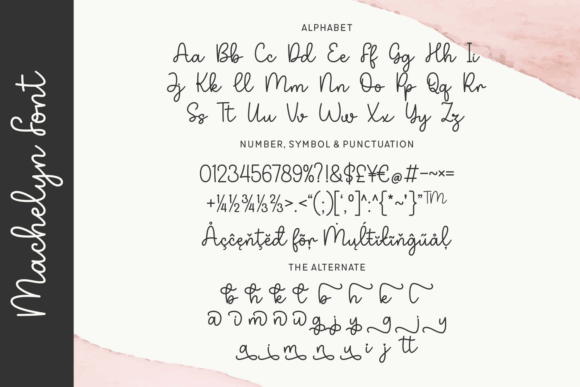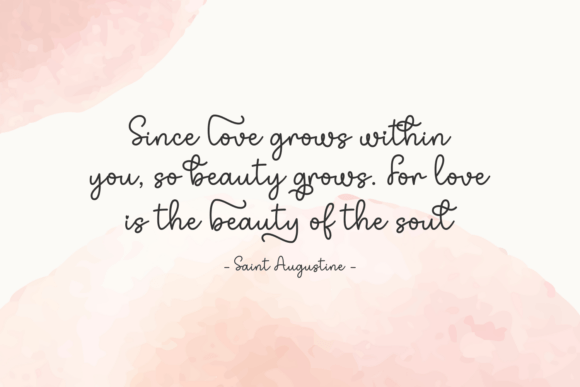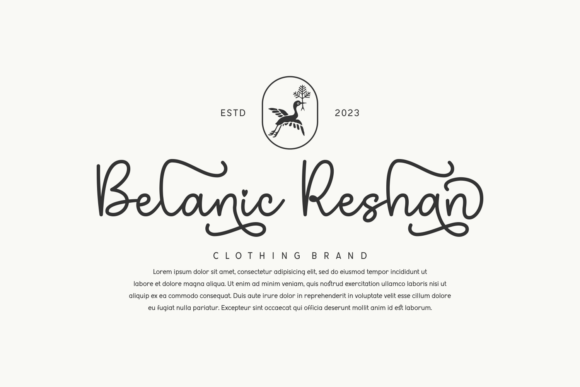
Introduction to Machelyn Font Font
Fonts play a crucial role in design, and the Machelyn Font font is a typeface that brings both character and versatility to any project. Whether you’re working on a branding project, a website, or a print design, the Machelyn Font font offers a unique style that can elevate your work.
Machelyn is a charming monoline script font that radiates elegance and simplicity.
Its flowing lines and unique swashes make it perfect for projects that need a touch of sophistication, such as wedding invitations, branding, greeting cards, and social media posts With its modern yet classic appeal, Machelyn ensures your designs will captivate and inspire.
Key Features of Machelyn Font Font
Why Choose Machelyn Font Font?
The Machelyn Font font is more than just a typeface – it’s a design tool that helps you communicate your message with style and clarity. Its unique character set and versatile design make it suitable for a wide range of applications, from elegant invitations to bold headlines.
With its carefully crafted letterforms and balanced proportions, the Machelyn Font font ensures readability and visual appeal across all mediums.
What makes Machelyn Font font special?
The Machelyn Font font stands out with its unique design, exceptional readability, and versatility across various design applications.